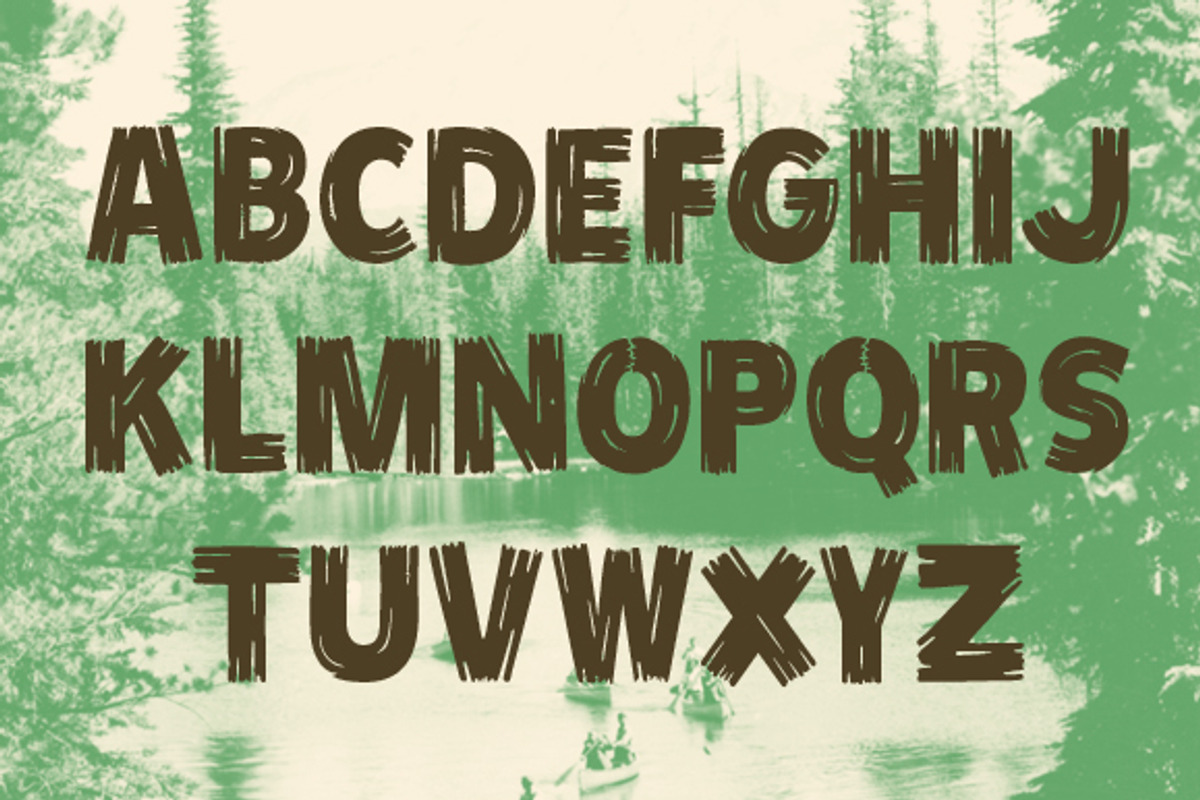
Scout - Vintage Style Display Font
Scout - Vintage Style Display Font by jeffportaro is a font selected for branding, posters, packaging, typography.
Why Scout - Vintage Style Display Font is worth a look
Scout - Vintage Style Display Font by jeffportaro fits naturally into Branding, posters, packaging, typography.